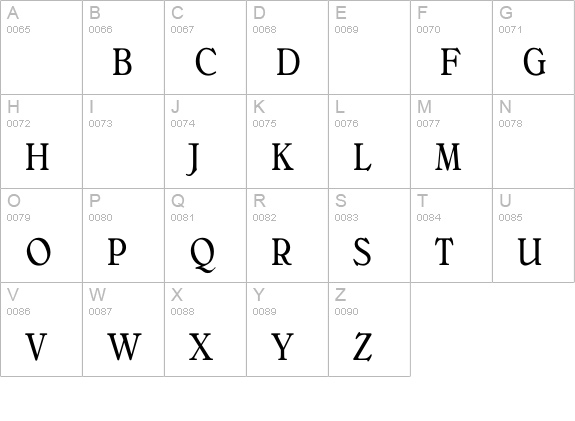
BelliniOriginalCondensed Font Details
BelliniOriginalCondensed is a sleek and modern font that exudes elegance and sophistication. With its condensed style, this font is perfect for creating eye-catching headings, titles, and logos that demand attention. The clean lines and unique letterforms of BelliniOriginalCondensed make it a versatile choice for a wide range of design projects. The best part is that BelliniOriginalCondensed is available for free download at FontsMarket.com. This means that you can add this stylish font to your collection without any cost, making it a valuable resource for your creative endeavors. Whether you're designing a website, crafting a brand identity, or working on a print project, BelliniOriginalCondensed is sure to elevate your designs and make a lasting impression. Download it today and let your creativity shine with this stunning font.